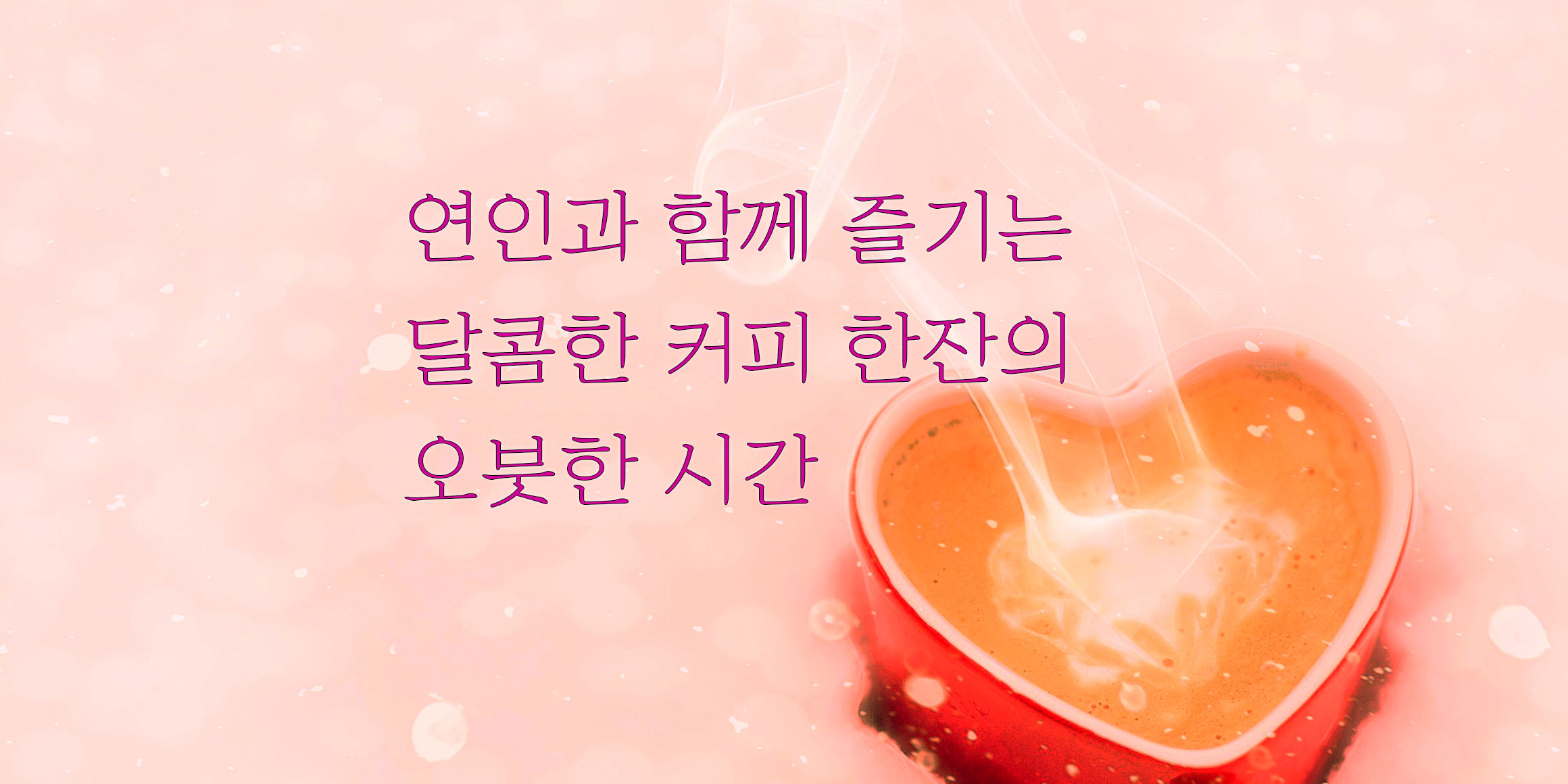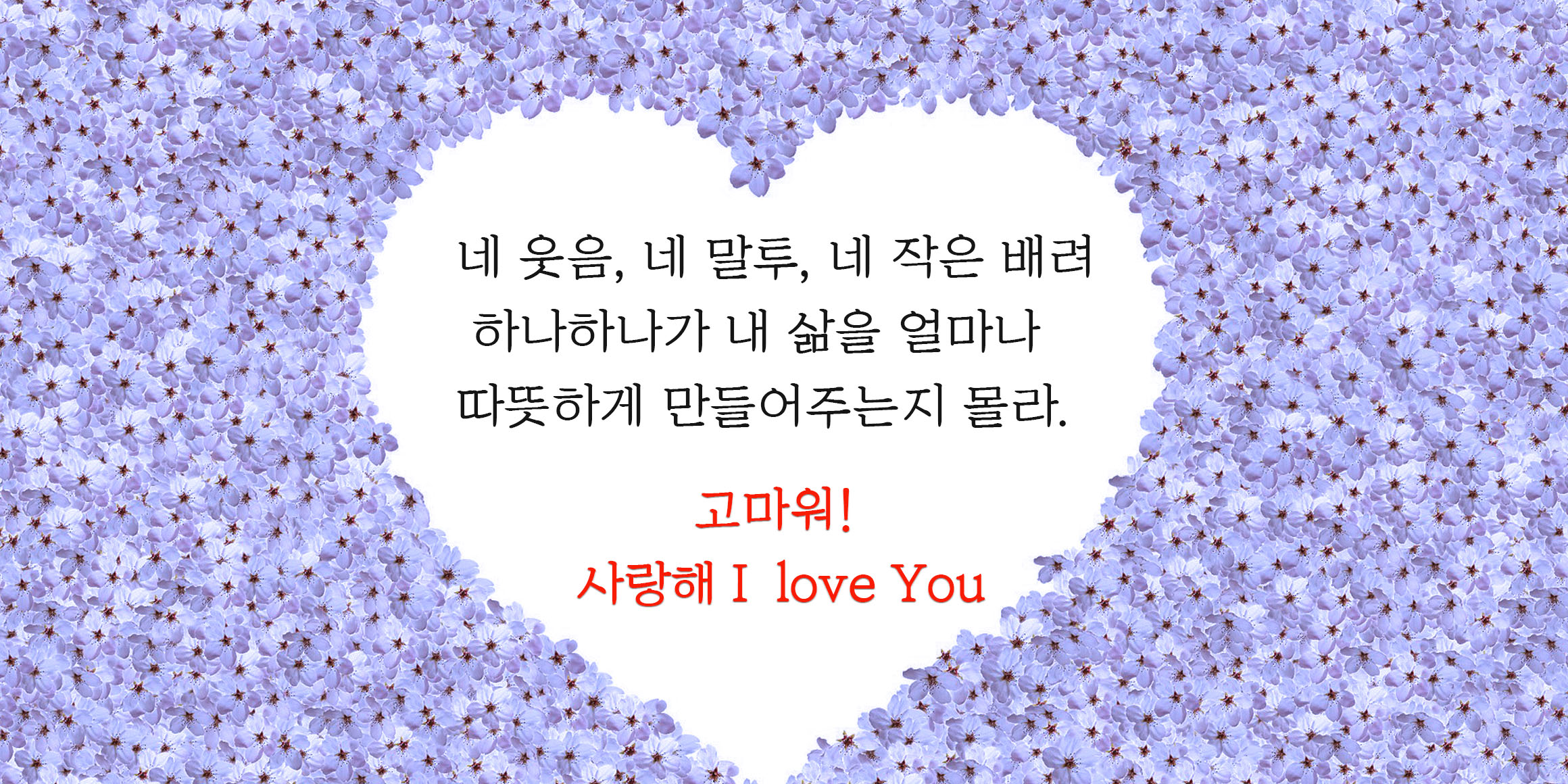
DXYeoninSijeol
It is a box-structured masterpiece that reinterprets the old newspaper masterpiece.
In consonants and vowels, moderation and simplification were attempted to reduce visual distractions caused by serifs and bumps
It is a typeface developed so that you can feel a lot more stable in sentences while securing readability